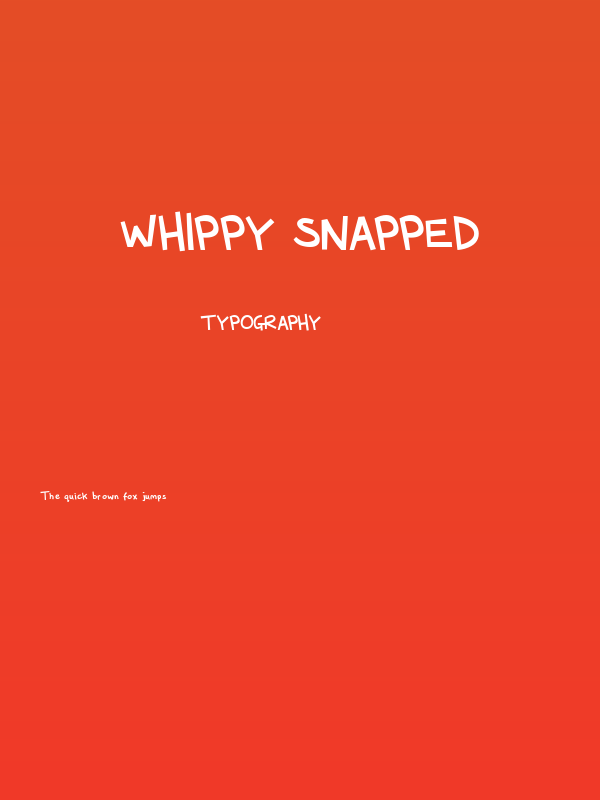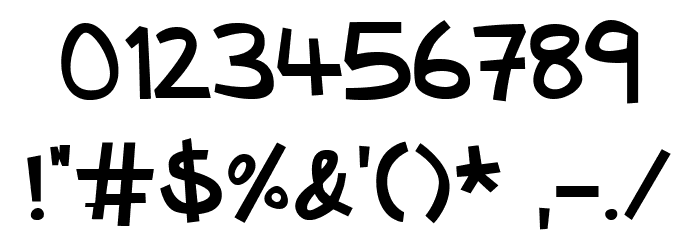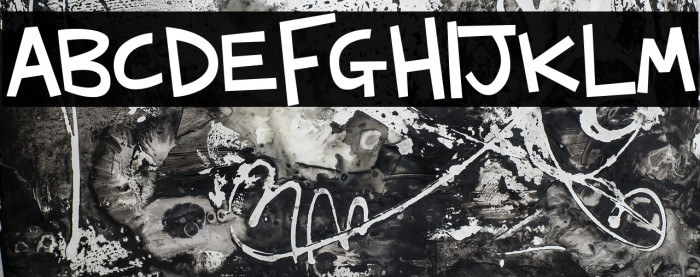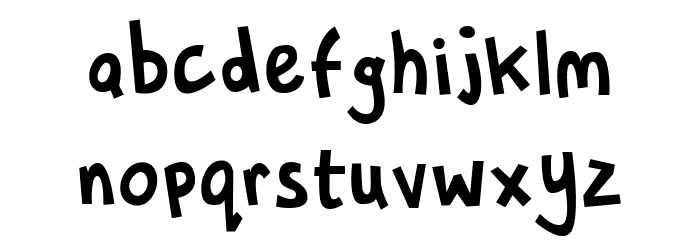
Whippy Snapped Font
Whippy Snapped Description
This playful and whimsical font features irregular, wavy lines that give it a hand-drawn appearance. The letters are bold and slightly tilted, adding a sense of movement and energy. The uppercase and lowercase characters maintain a consistent style, with rounded edges and varying stroke widths that contribute to its casual and friendly look. The numerals and special characters follow the same lively design, making it suitable for creative and informal projects. Its unique style is perfect for capturing attention and conveying a fun, approachable vibe.
| Overall Style | Whimsical, Playful |